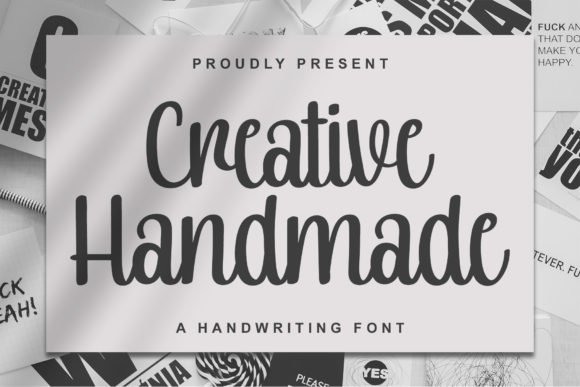
The Art of Handmade Typography
There’s something magical about the moment when a spark of creativity strikes, and a new idea is born. For designers, it’s the thrill of bringing a concept to life, and for anyone who’s ever felt the urge to create, it’s the joy of expressing oneself through art. Whether it’s a wedding invitation, a heartfelt thank you card, or a beautifully crafted logo, the right typography can elevate a design from ordinary to extraordinary.
Enter the Creative Handmade Font, a charming and elegant typeface that adds a personal touch to any design. This stunning font is perfect for adding a handwritten feel to your creations, making it a valuable asset for designers looking to add a unique touch to their work.
Creative Handmade Font Key Features
- Unique Characteristics: This handmade font features unique, hand-drawn characters with imperfections and subtle variations, giving it a distinctive and organic feel.
- Legibility: The font is designed to be highly legible, making it suitable for a wide range of applications, from body text to headings and titles.
- Font Variations: The font includes multiple font styles, including regular, bold, italic, and bold italic, allowing for versatility in design.
Designer Review: Creative Handmade Font
Overall, I think the Creative Handmade Font has some unique charm to it ✨. The hand-drawn feel and organic texture give it a distinctive personality that could work well for certain projects. The font also includes a range of weights and styles, making it versatile for use in various contexts.
However, I do have some reservations about its limitations ⚠️. For one, the font can be quite busy and may not be ideal for large blocks of text. Additionally, some of the letterforms may not be as refined or consistent as one might expect from a more polished font. This could potentially impact the overall readability and professionalism of a design.
Here are some specific points to consider:
- Unique hand-drawn feel that can add character to designs
- Includes a range of weights and styles for versatility
- May not be suitable for large blocks of text due to busyness
- Letterforms may not be as refined or consistent as expected
In conclusion, while the Creative Handmade Font has its strengths, I think it’s essential to carefully consider its limitations and potential impact on the overall design.
The Creative Handmade Font is perfect for:
Branding and marketing materials
Personalized gifts and stationery
Any project where a unique and handmade look is desired.
Alternatives to Creative Handmade Font for Designers
Lato is a modern sans-serif font that works well for clean and minimalist designs. It is suitable for titles, headings, and body text. Lato is a great alternative to Creative Handmade Font when you want a professional and sleek look without the hand-drawn feel.
Alegreya is a serif font that offers a elegant and sophisticated look. It is perfect for designs that require a touch of luxury and sophistication. Alegreya is a better choice than Creative Handmade Font when you want to convey a sense of refinement and high-end quality.